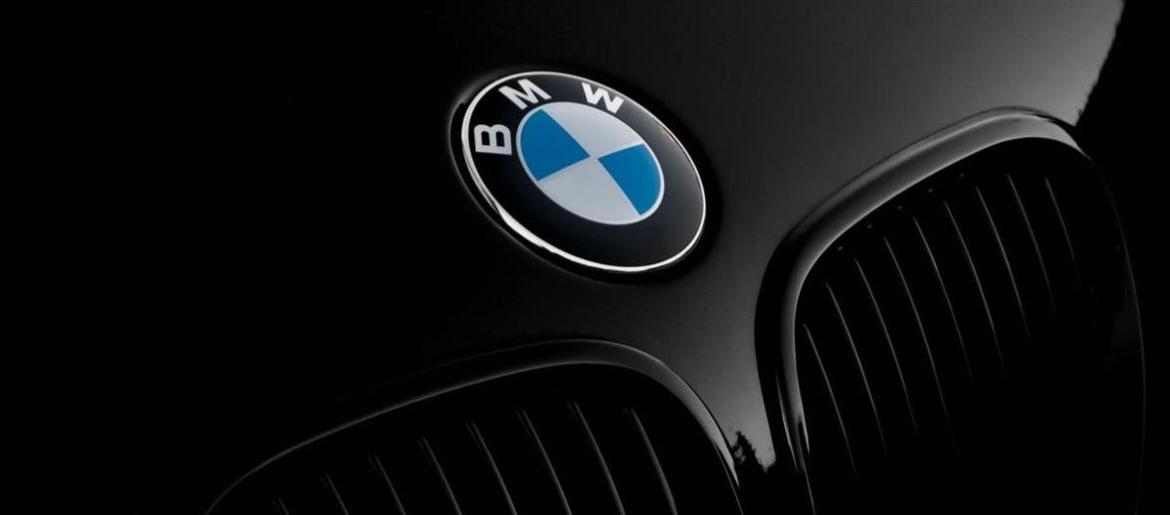
BMW Font
BMW Font embodies the brand’s core values of precision, performance, and sophistication. The typeface used by BMW—known as BMW Type—is a custom sans-serif inspired by Helvetica. Its clean geometry and modern proportions project a sense of engineering excellence and confidence, aligning perfectly with BMW’s reputation for innovation and high-quality craftsmanship.
The BMW logo font appears across car interiors, advertisements, websites, and digital dashboards, ensuring visual consistency across every brand touchpoint. Its simplicity and strength reflect the company’s “Sheer Driving Pleasure” philosophy, balancing technical precision with elegance. This makes it not just a corporate typeface, but a defining element of BMW’s identity.
Designers who admire minimalism and technical clarity can use fonts similar to BMW Font—like Helvetica, Nimbus Sans L, or Tex Gyre Heros—to achieve a comparable sense of refinement and modernity.